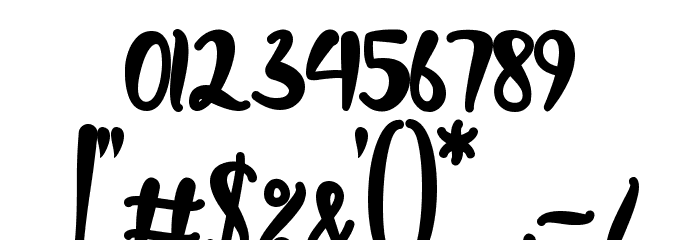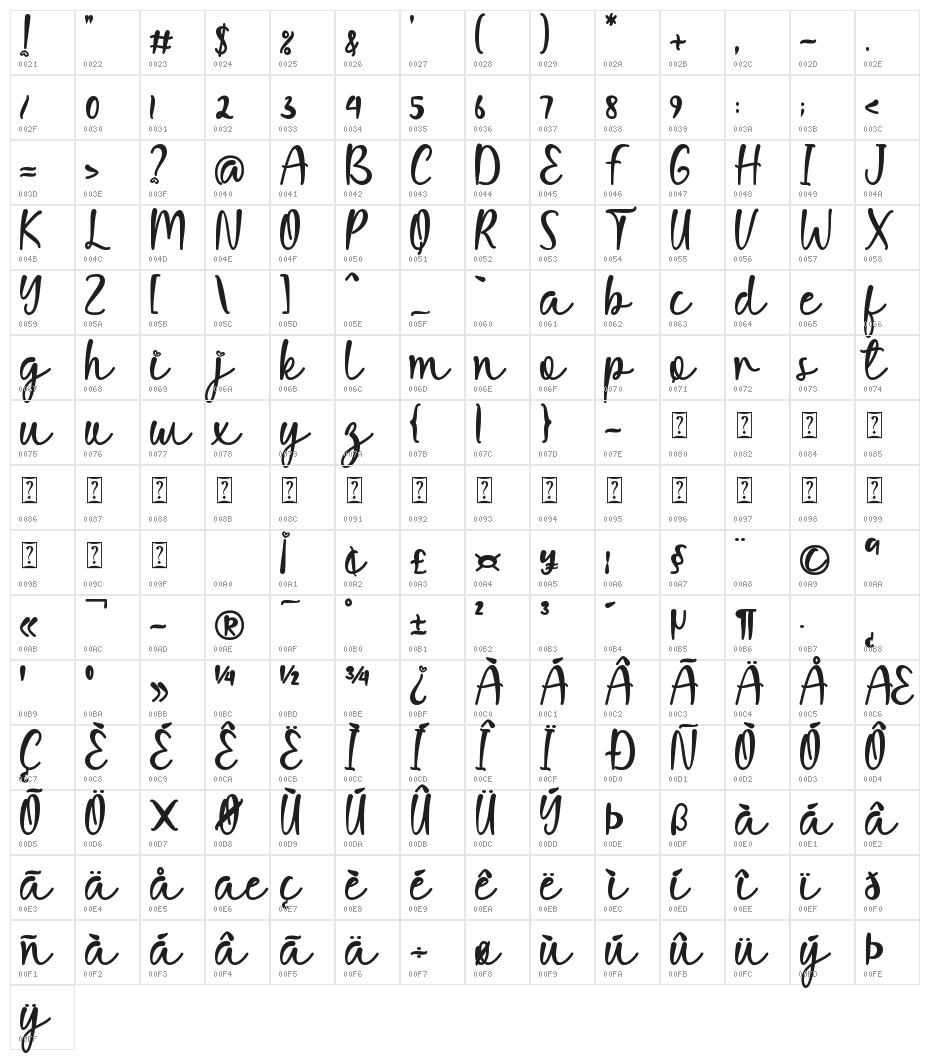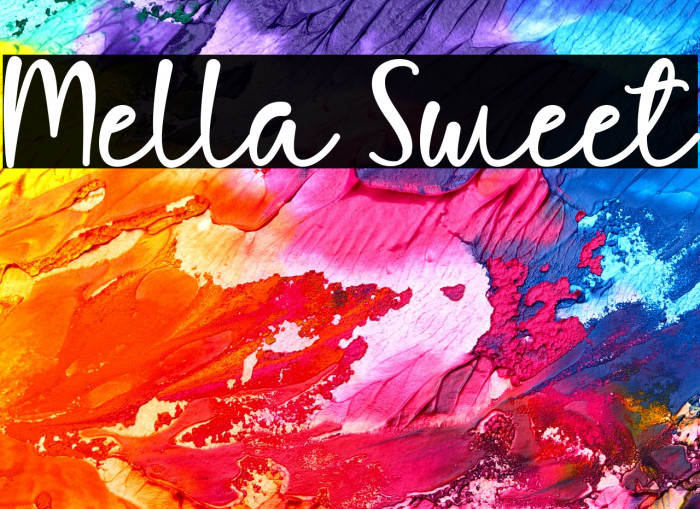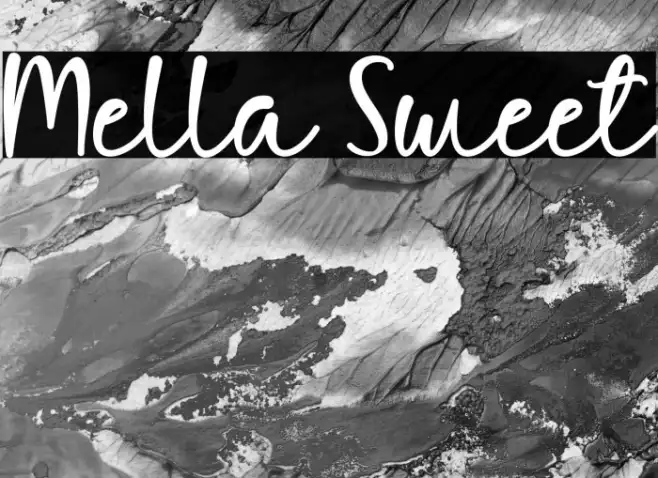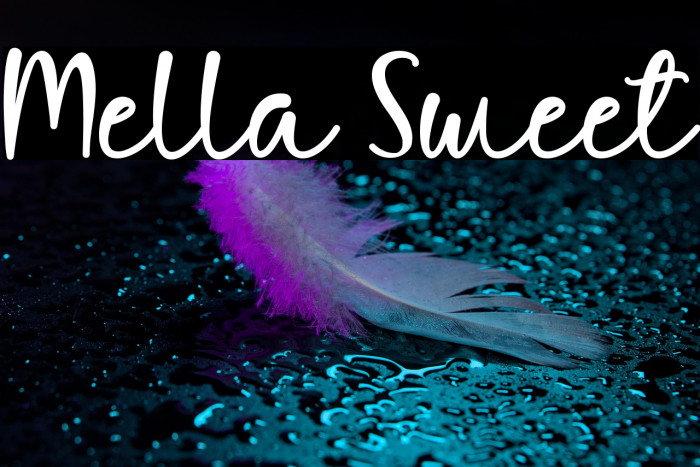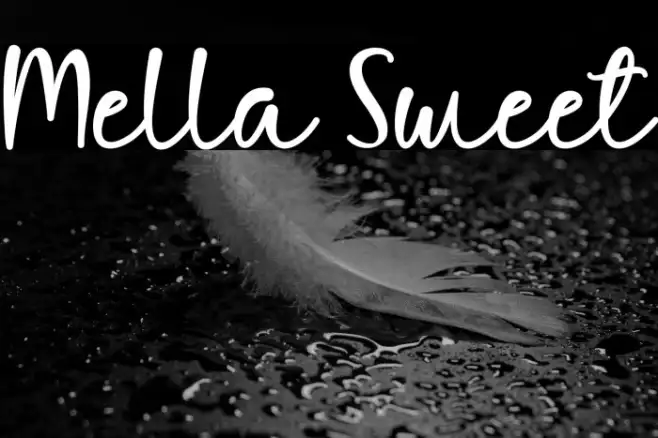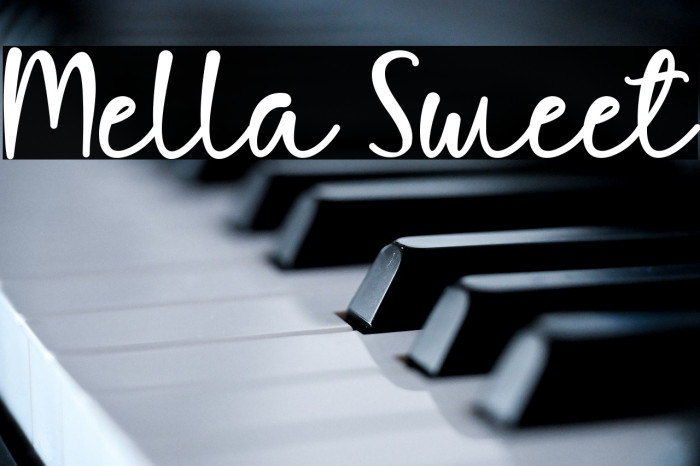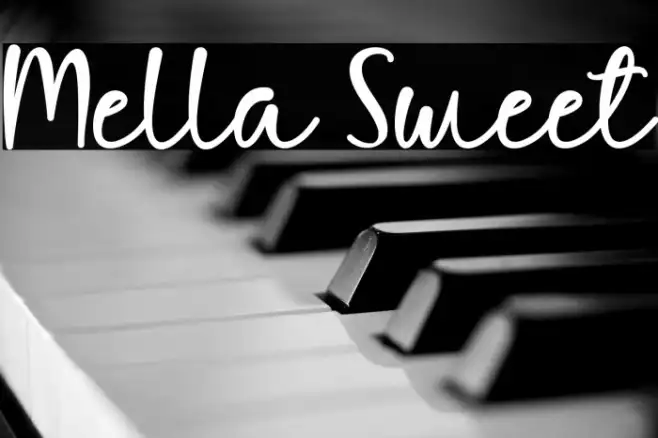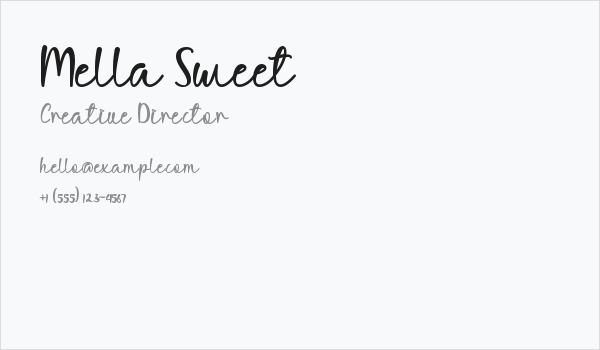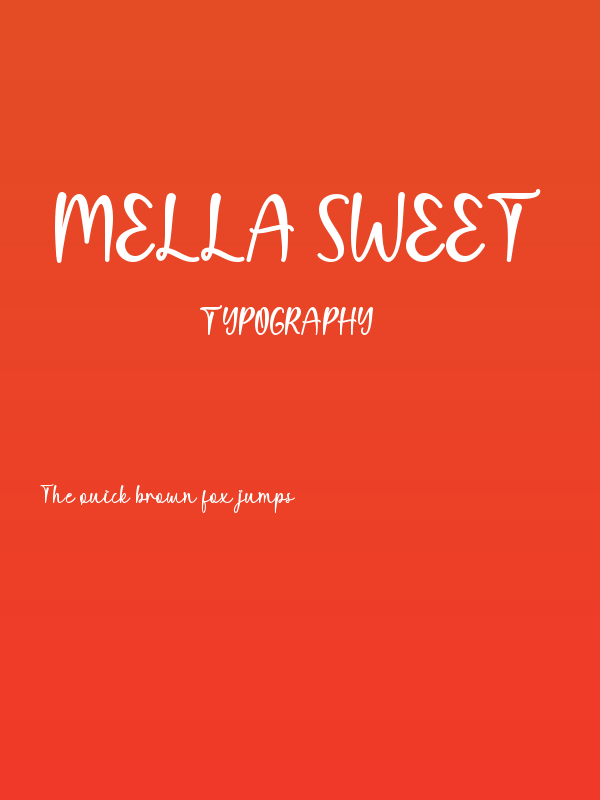
Mella Sweet Font
Mella Sweet Description
This font features a playful and whimsical script style with smooth, flowing lines and a handwritten appearance. The uppercase letters are bold and slightly slanted, giving a dynamic and lively feel. The lowercase letters maintain a consistent flow, with some characters featuring charming loops and curls. The numerals are clear and legible, matching the overall playful aesthetic. Special characters are creatively designed, adding to the font's unique personality. This font exudes a friendly and approachable vibe, making it ideal for projects that require a touch of fun and creativity.
| Use Case | Logos, Invitations, Greeting cards |
| Proposed Projects | Greeting cards, invitations, children's books, playful branding, and social media graphics. |